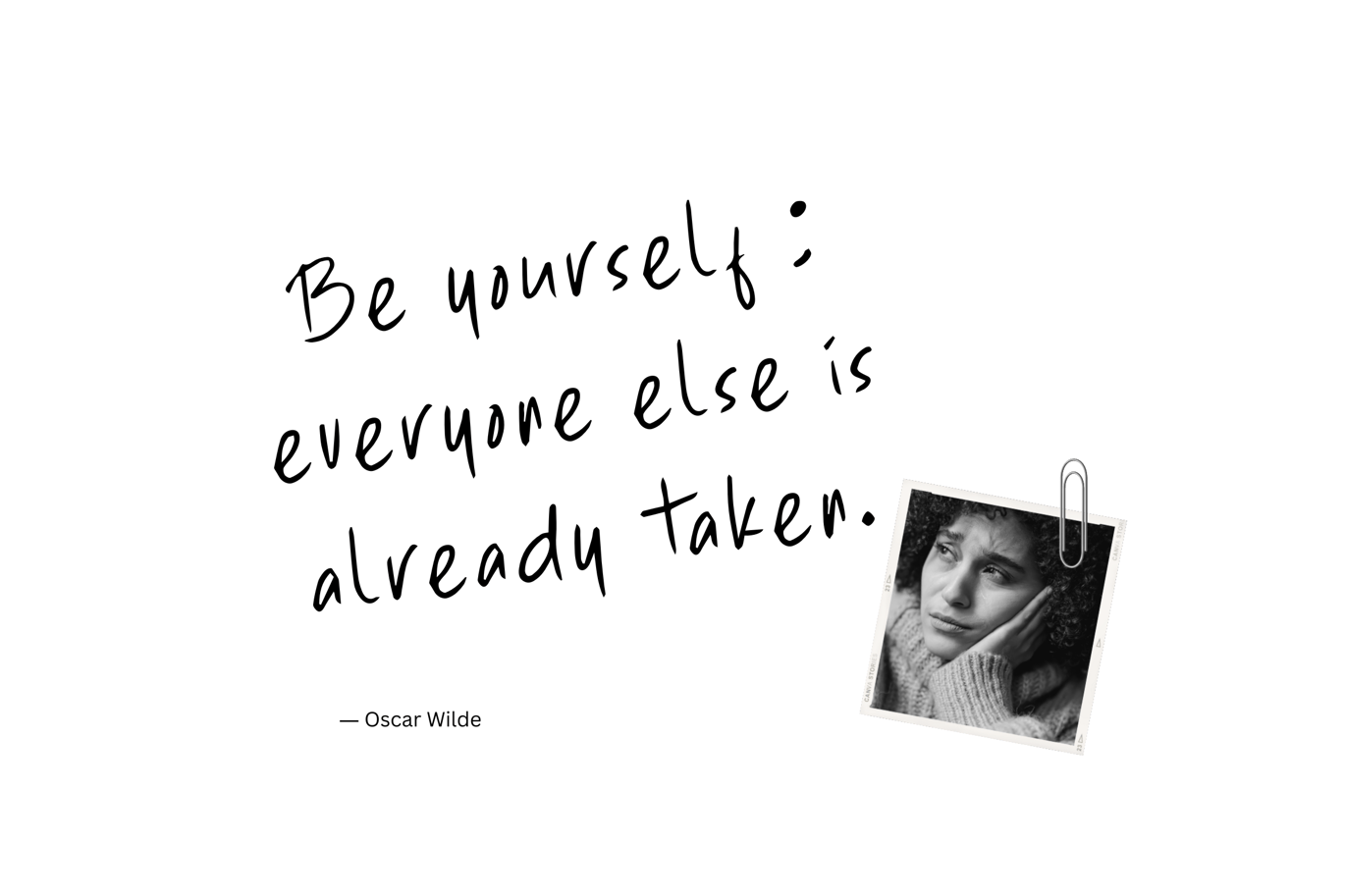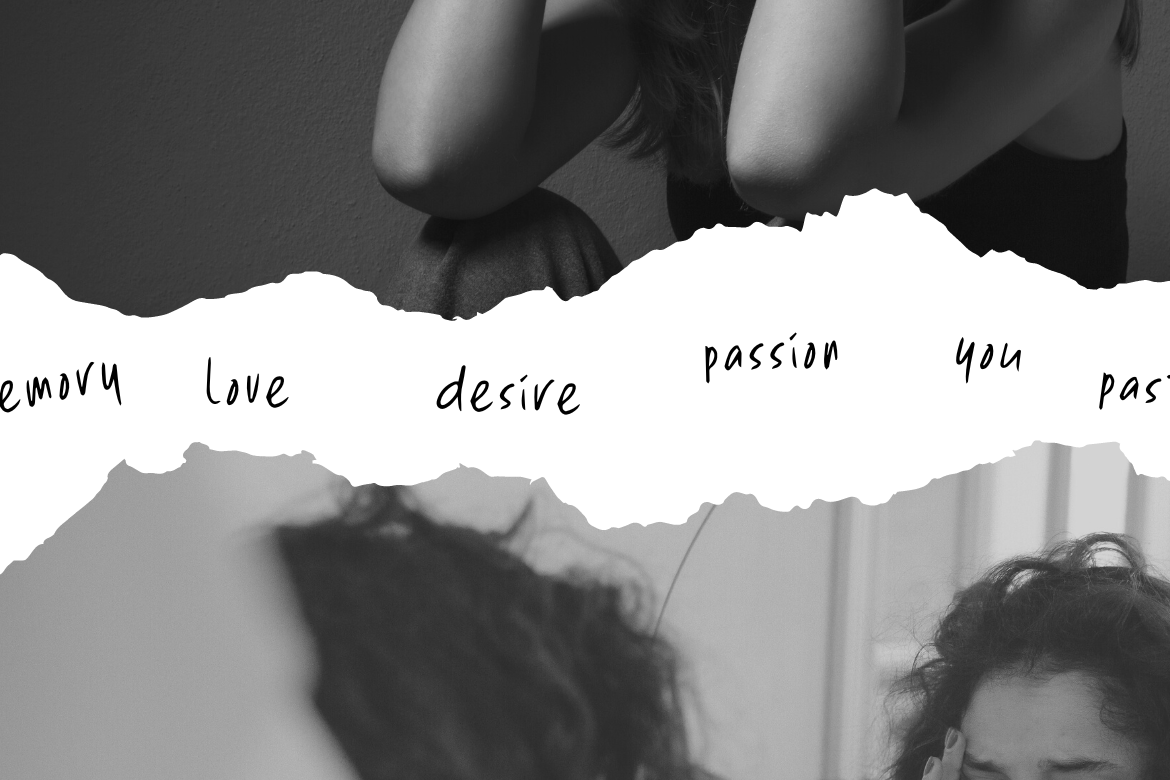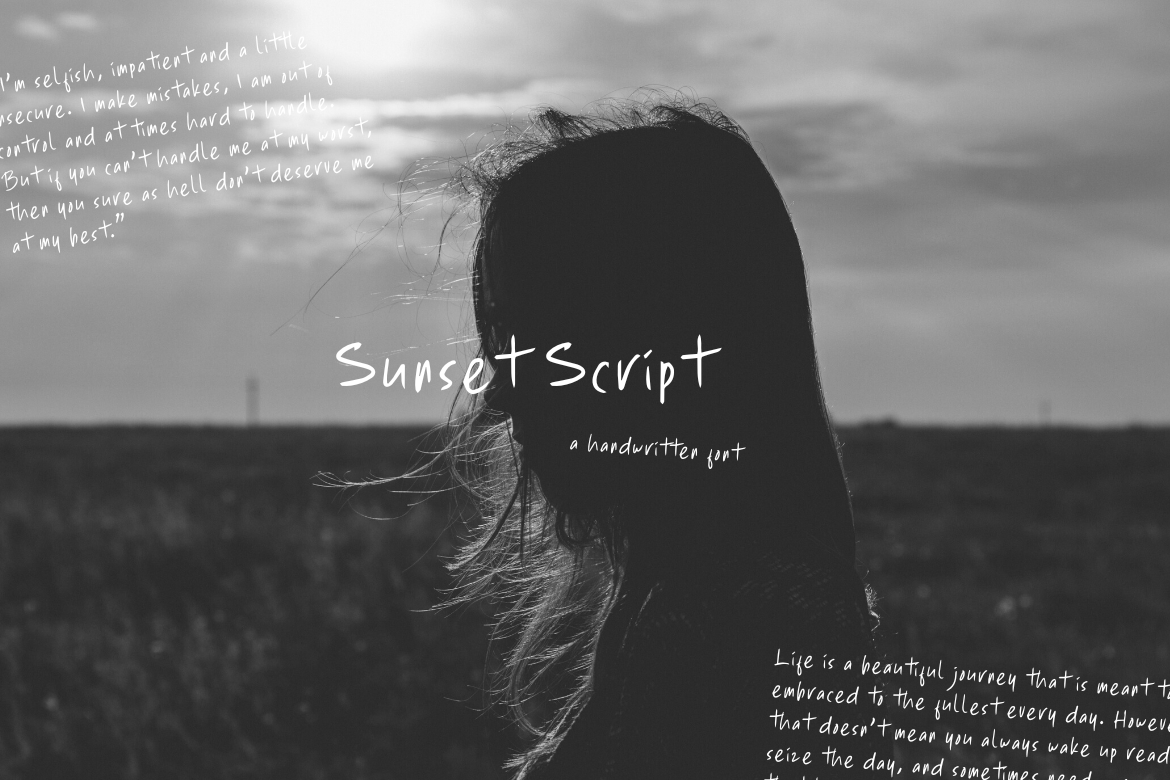
Sunset Script is handwriting, not calligraphy. Slidehack drew it with quick, slightly scratchy strokes, a narrow build and letters that lean at different angles, like real notes in a diary. Unlike most fonts called script, the letters mostly don’t join, so it reads more like print handwriting.
The specimens use it on black-and-white photos with an Oscar Wilde quote and short words like “love” and “desire” on torn paper. It also holds up in a few lines of text, though at small sizes the thin strokes get faint. The full version comes in TTF, OTF and WOFF.
Best uses for Sunset Script
- Quotes on photos and social posts
- Journal and planner designs
- Photography captions
- Handwritten notes on posters and zines
- Personal blog headers
A clean sans helps Sunset Script stand apart. Inter is a good neutral choice, as the Oscar Wilde sample shows with its small credit line. Libre Baskerville gives a bookish contrast. For a typewritten note beside it, try Courier Prime.